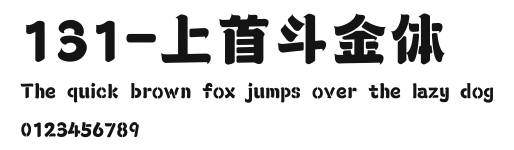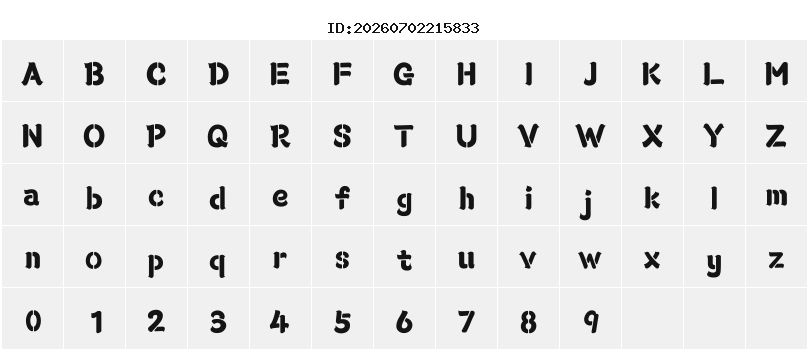
• Font Name: 131-上首斗金体
• Font ID: 131-SSDouJinTi:Version 6.00
• Full Font Name: 131-上首斗金体
• Version: Version 6.00 March 25, 2022
• PostScript Name: 131-SSDouJinTi
• Character Count: 7569
• Manufacturer: 上首造字
About 131-上首斗金体.ttf
131-上首斗金体.ttf is a modern, elegant sans-serif font designed for ultimate readability and visual harmony. Perfect for branding, headlines, web design, and print materials.